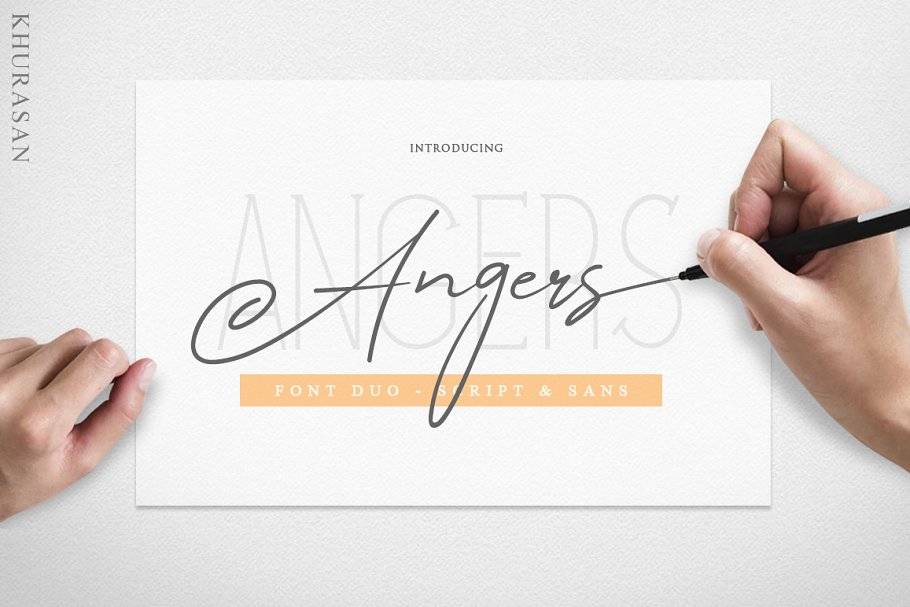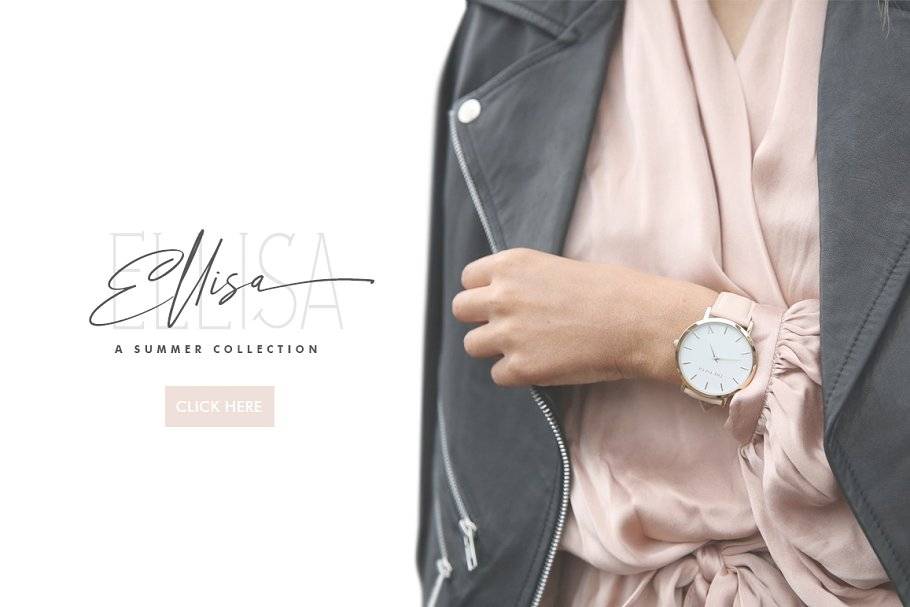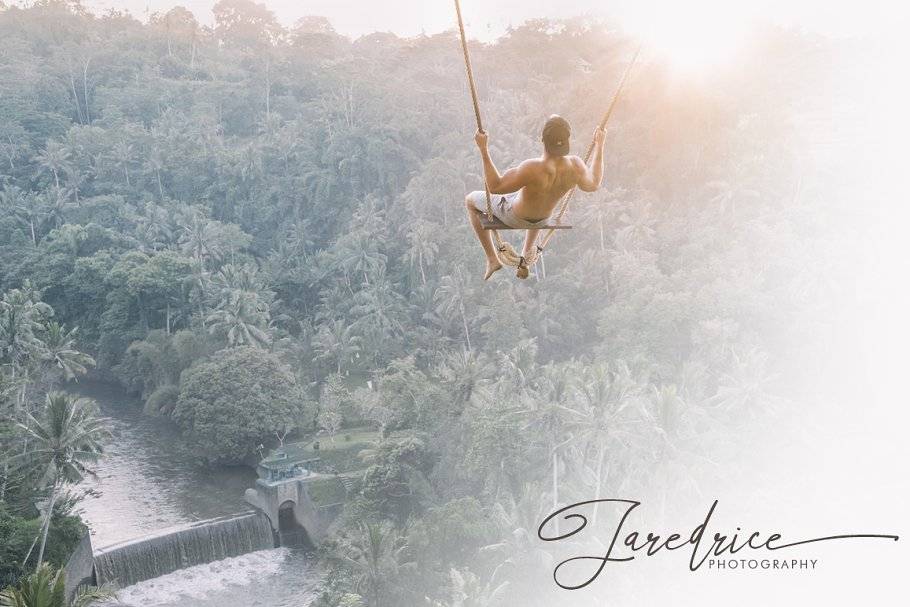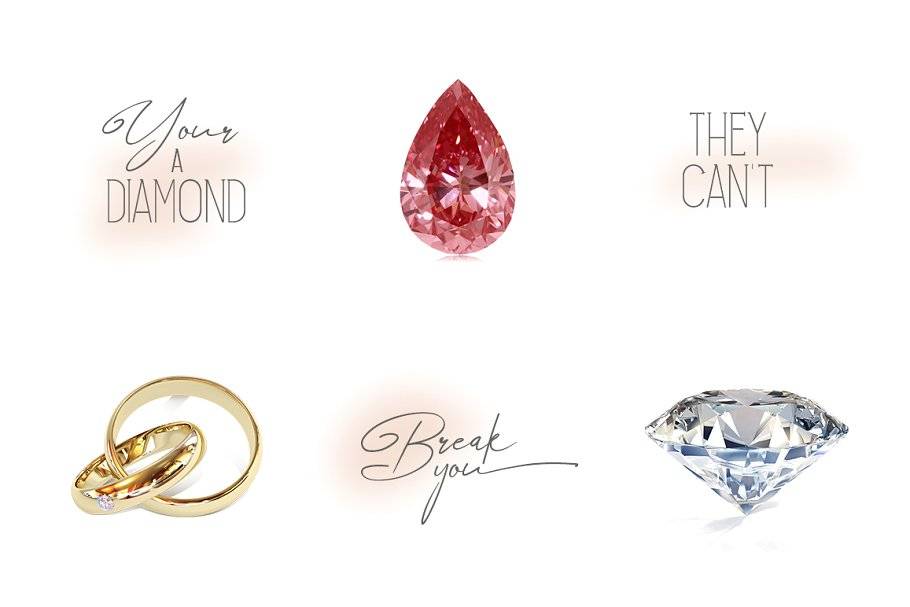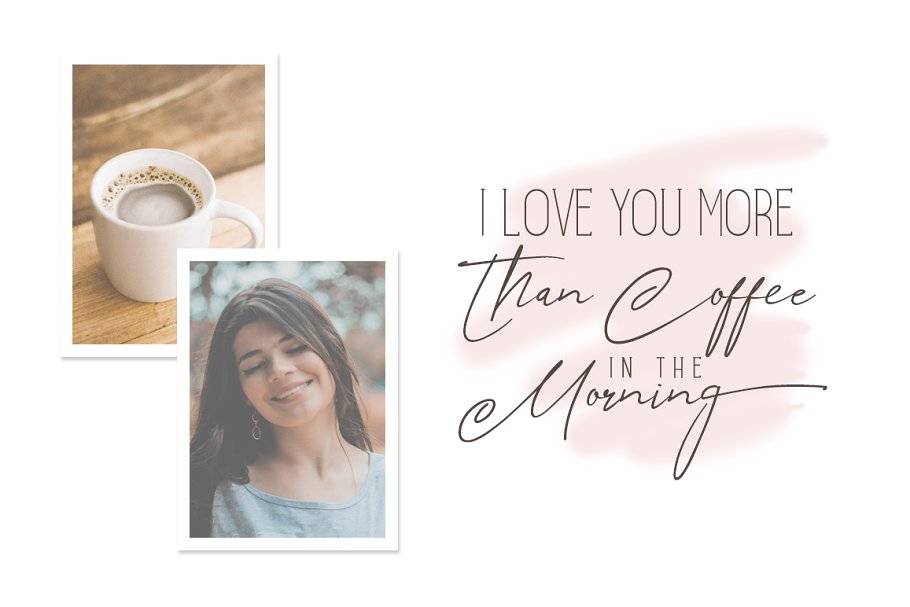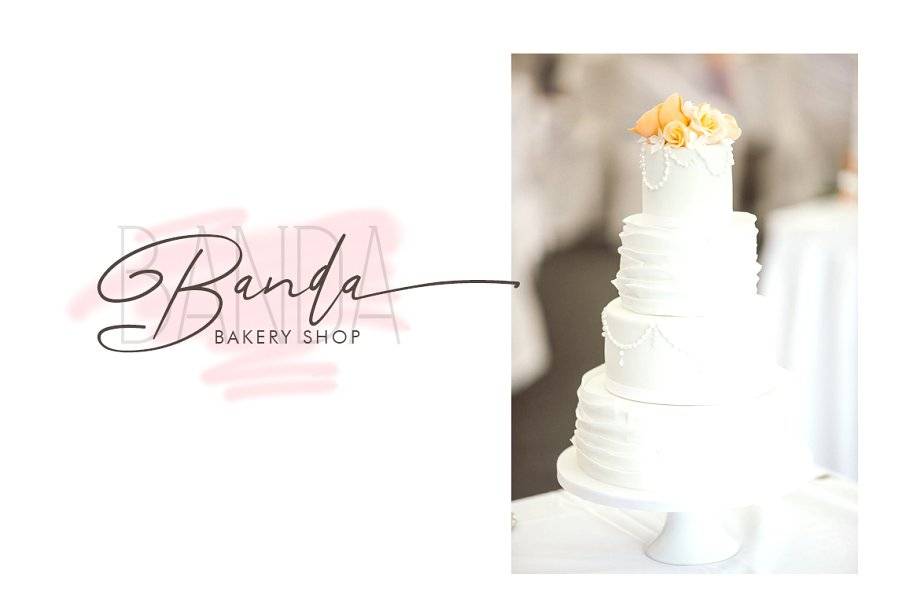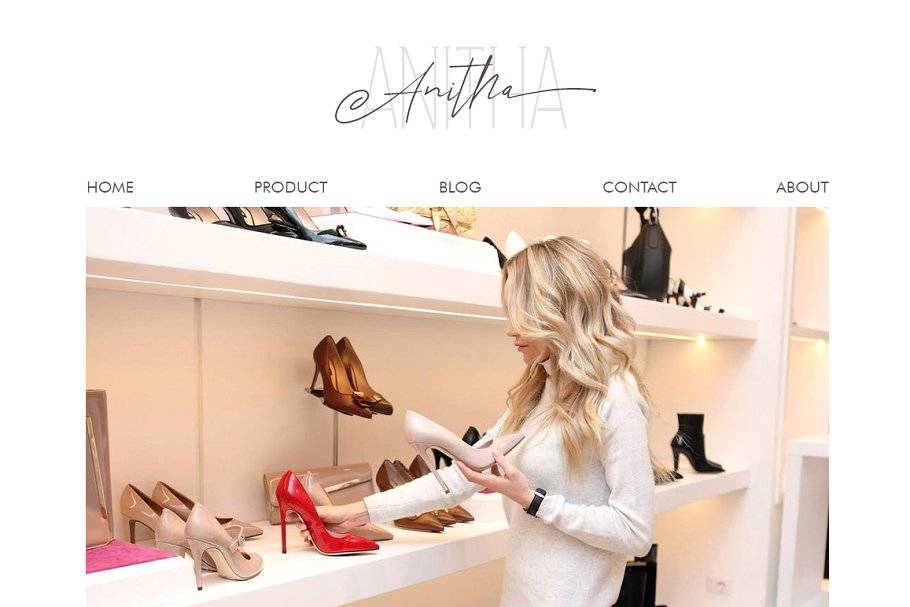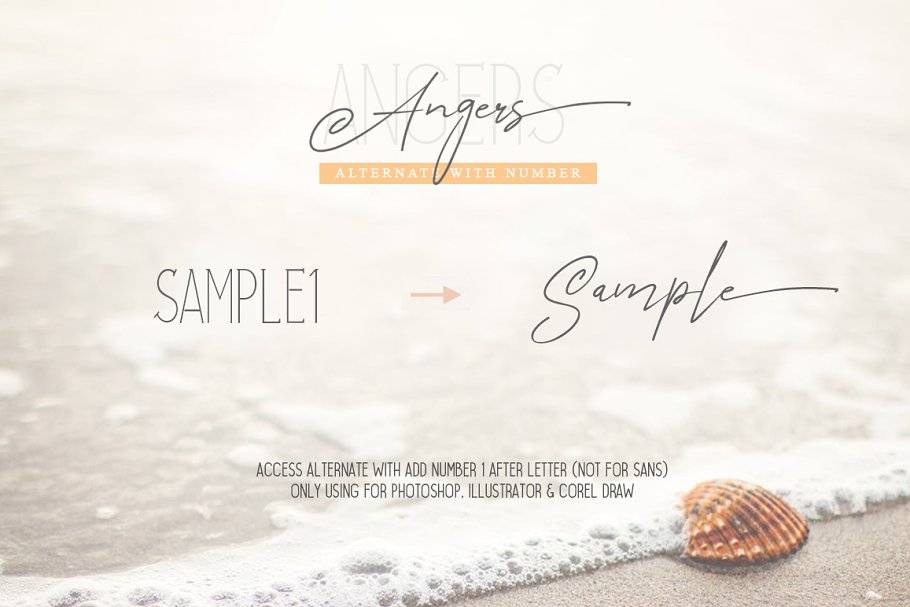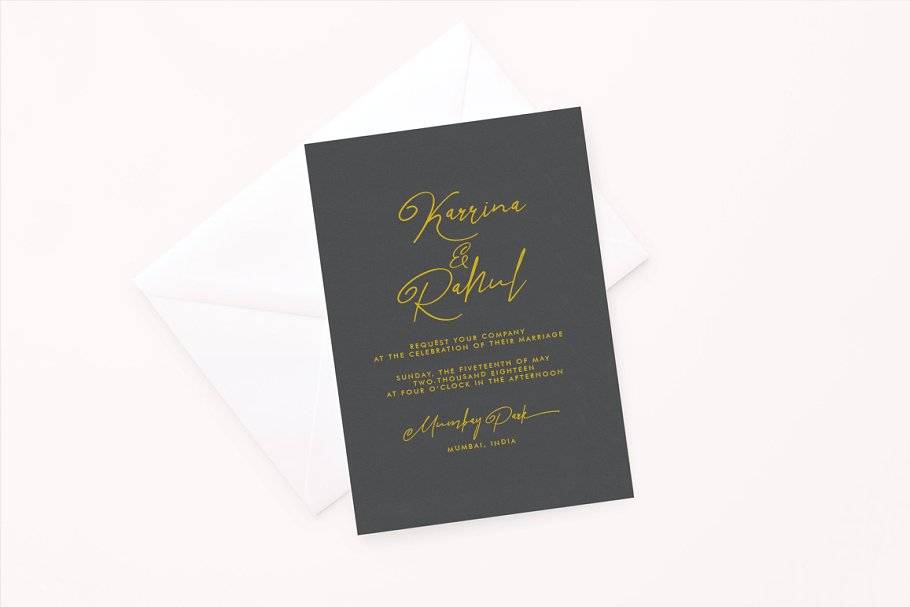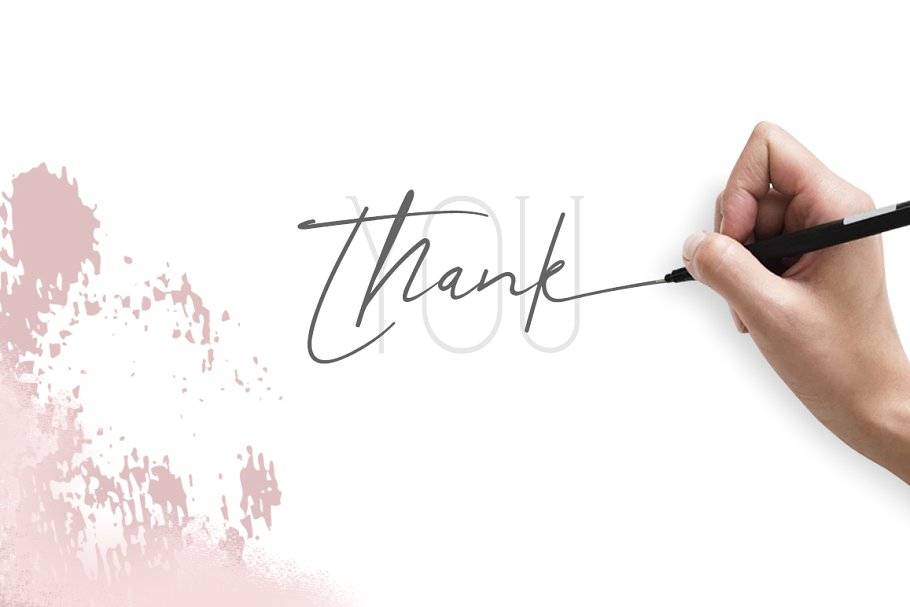
Angers Signature Script Font
Angers Signature Script Font is a handwriting script and sans a nice font type. Angers font it’s perfect for name card, poster, logo, magazine, cover, banner, T-shirt and headers, or even large-scale artwork as well.